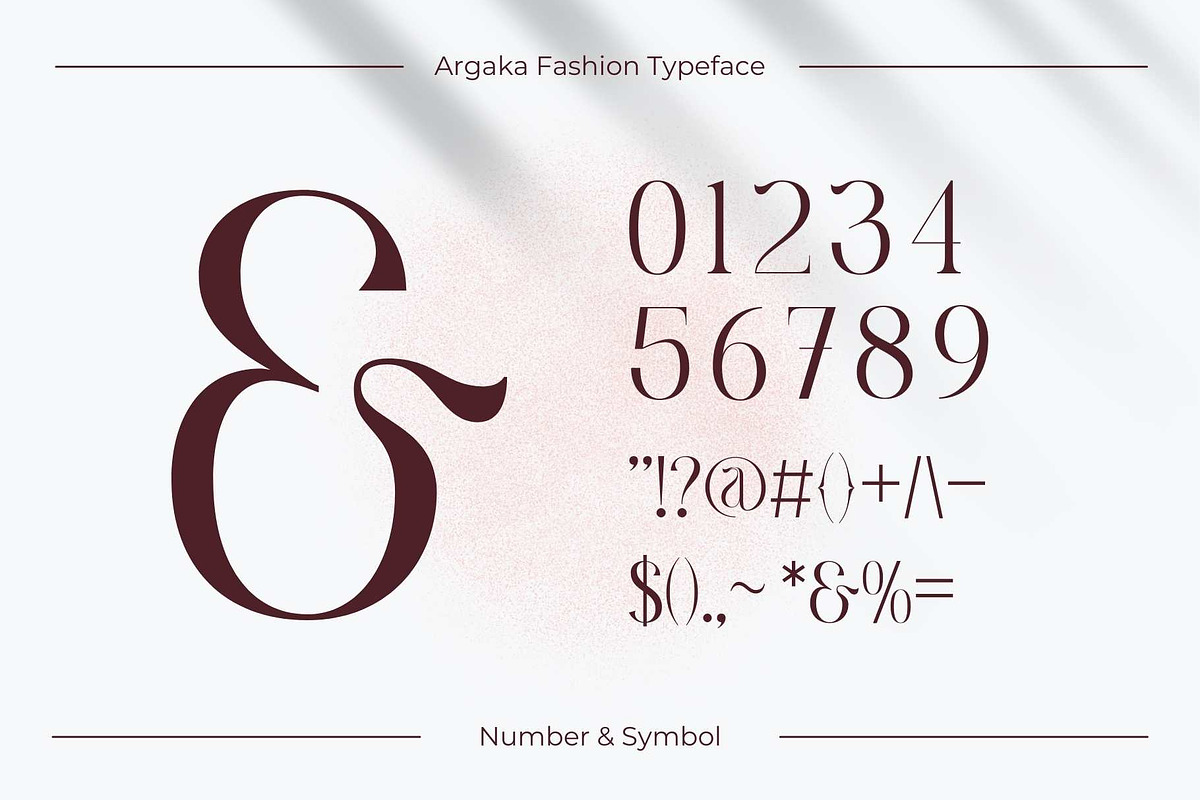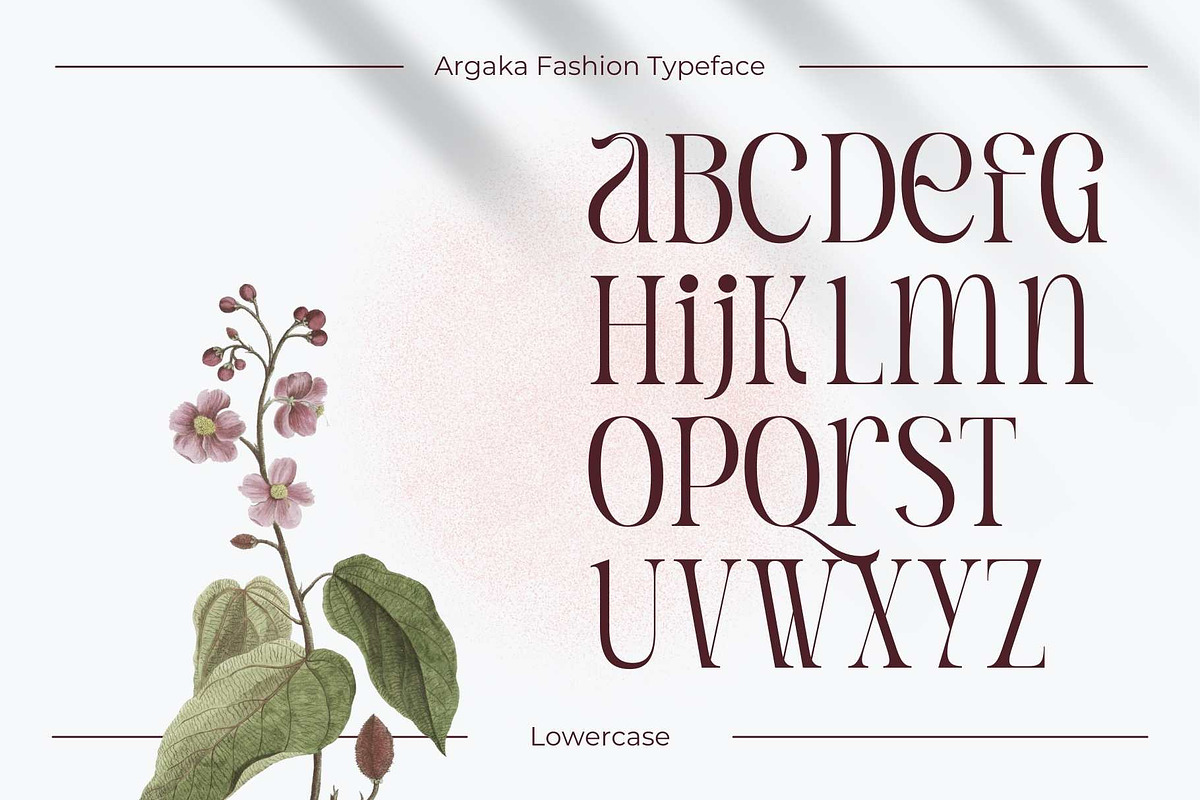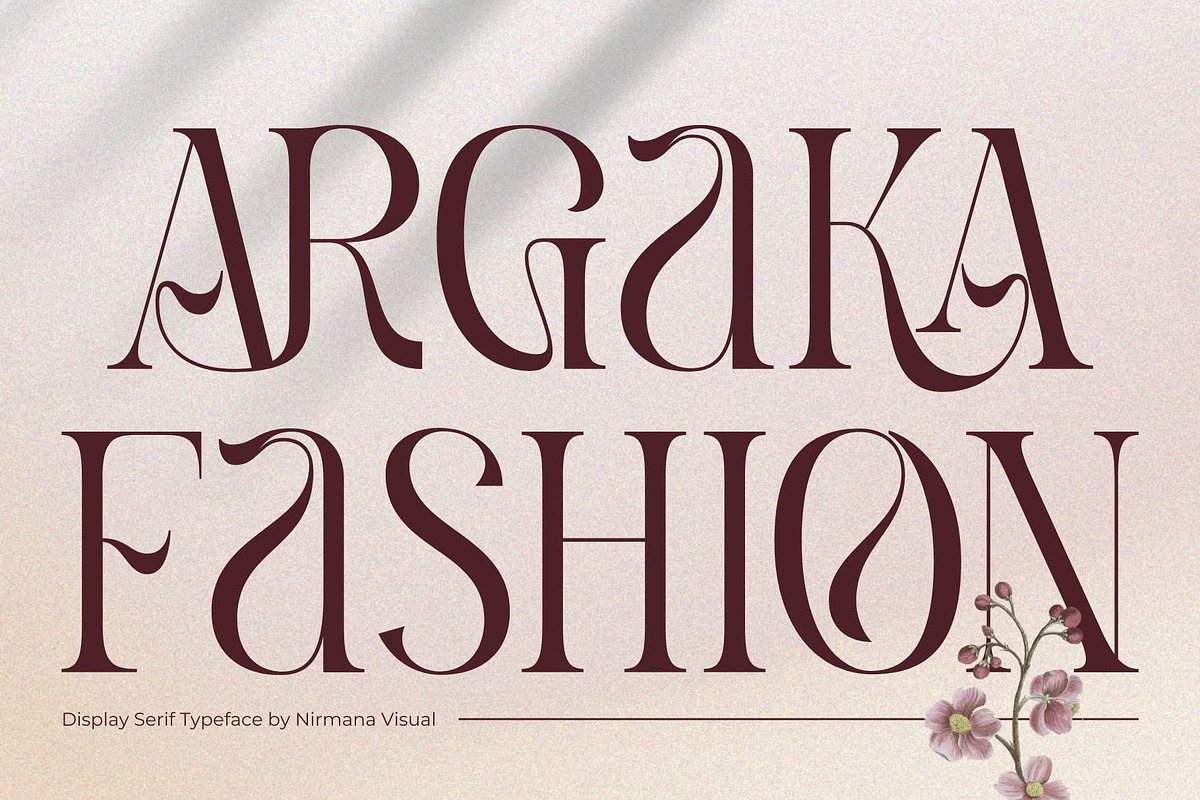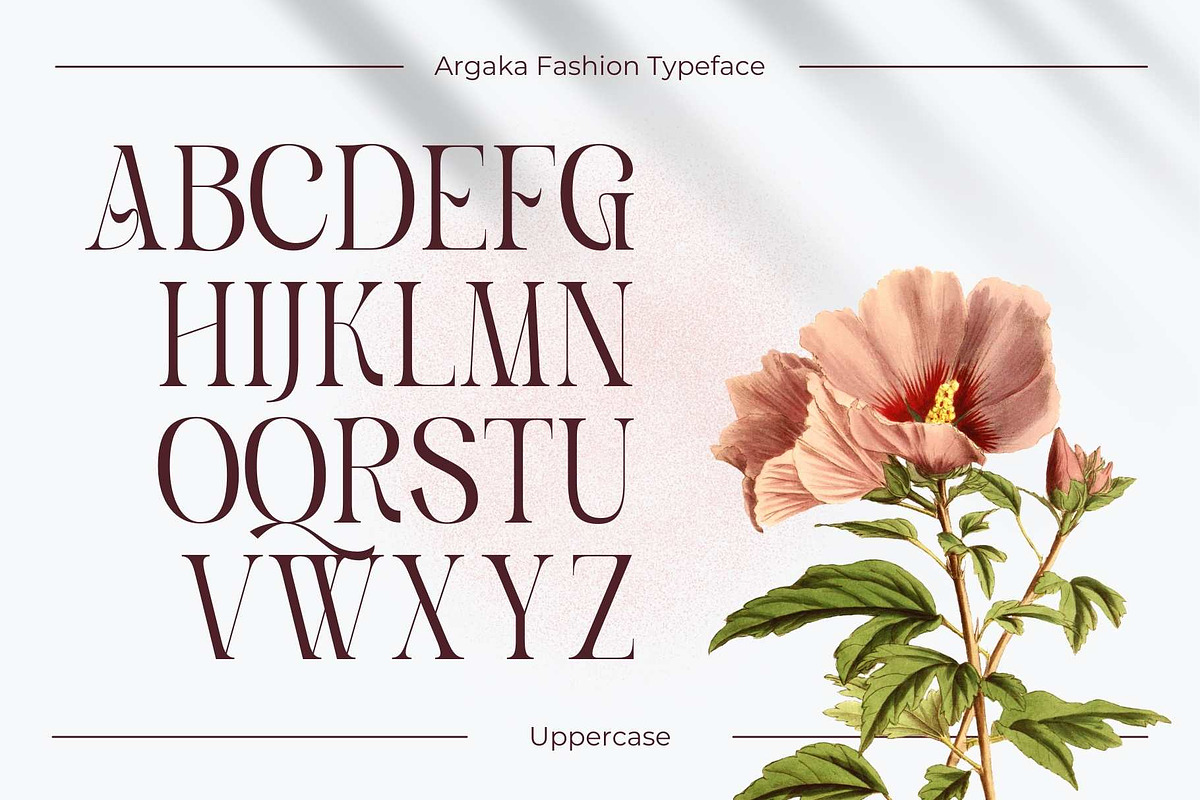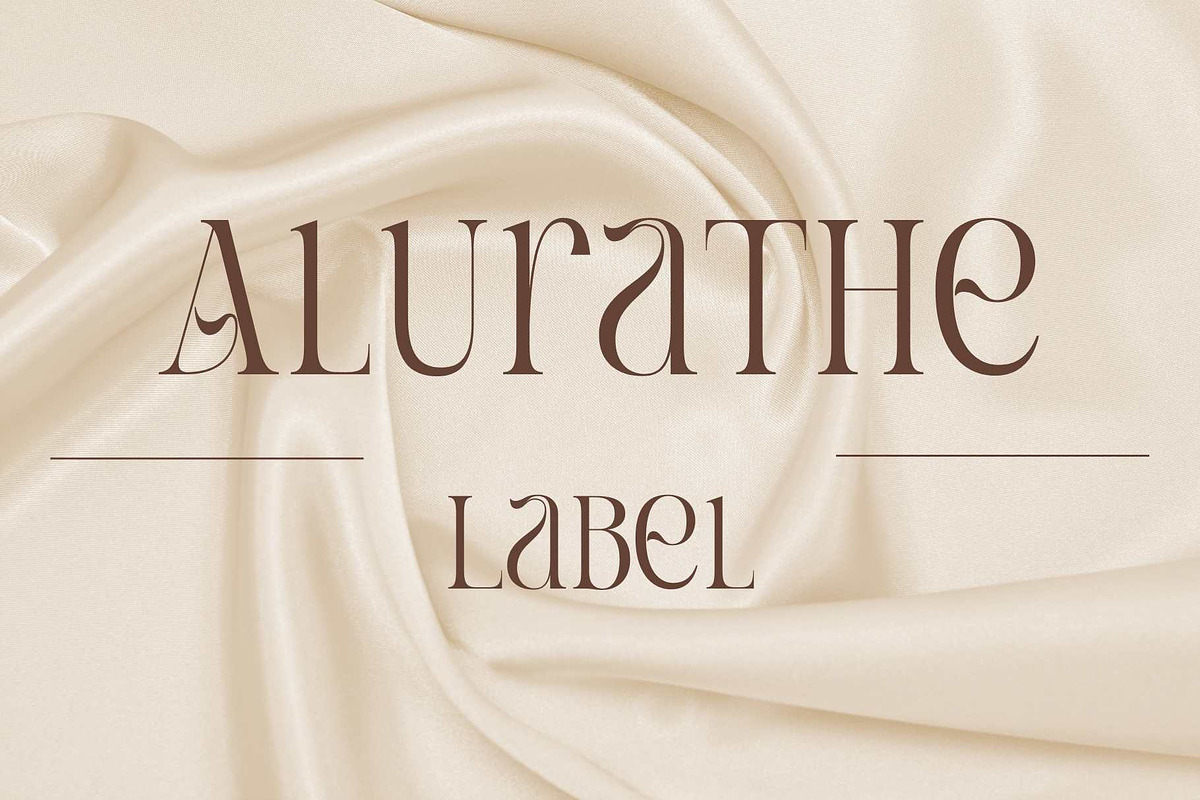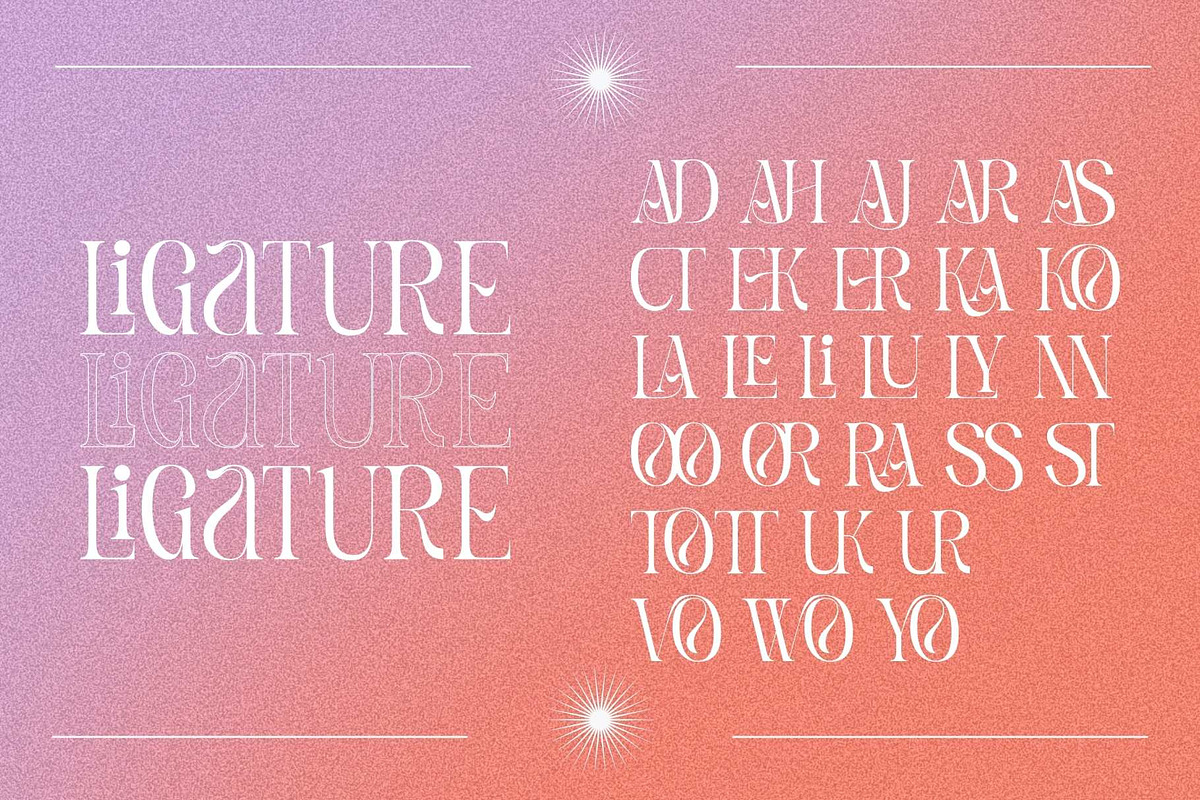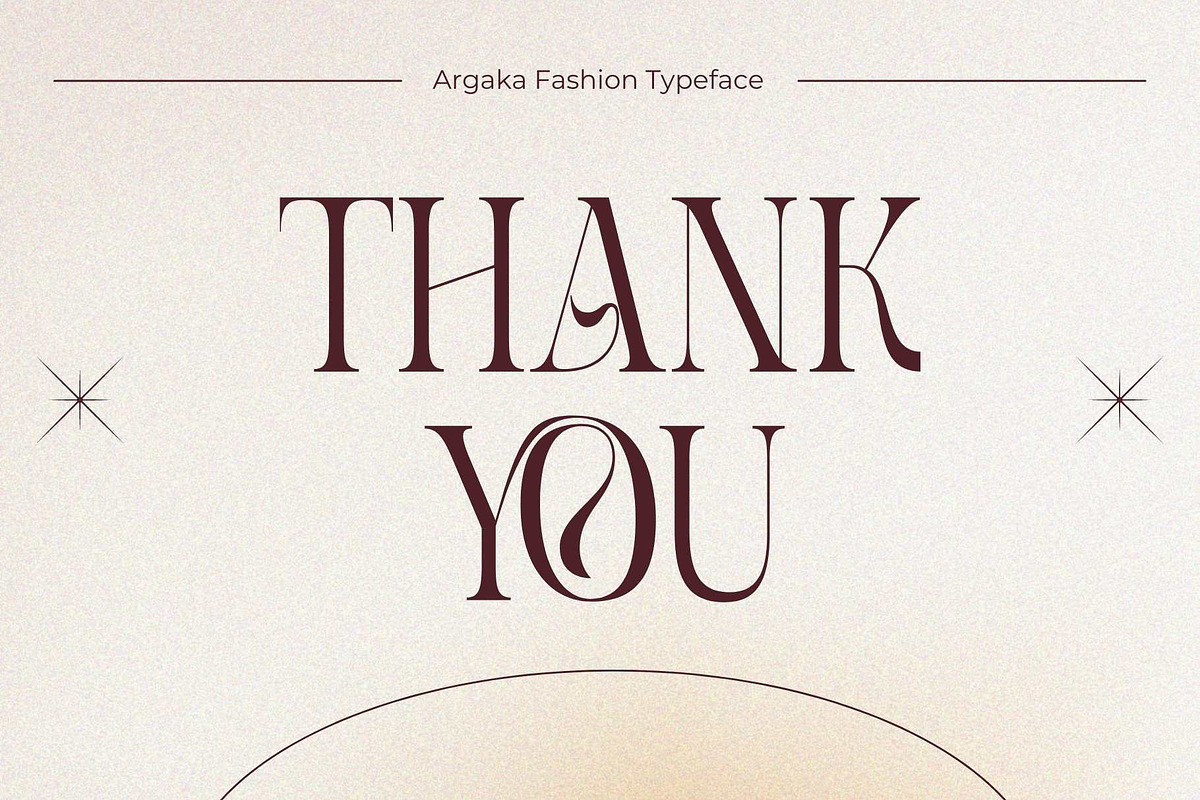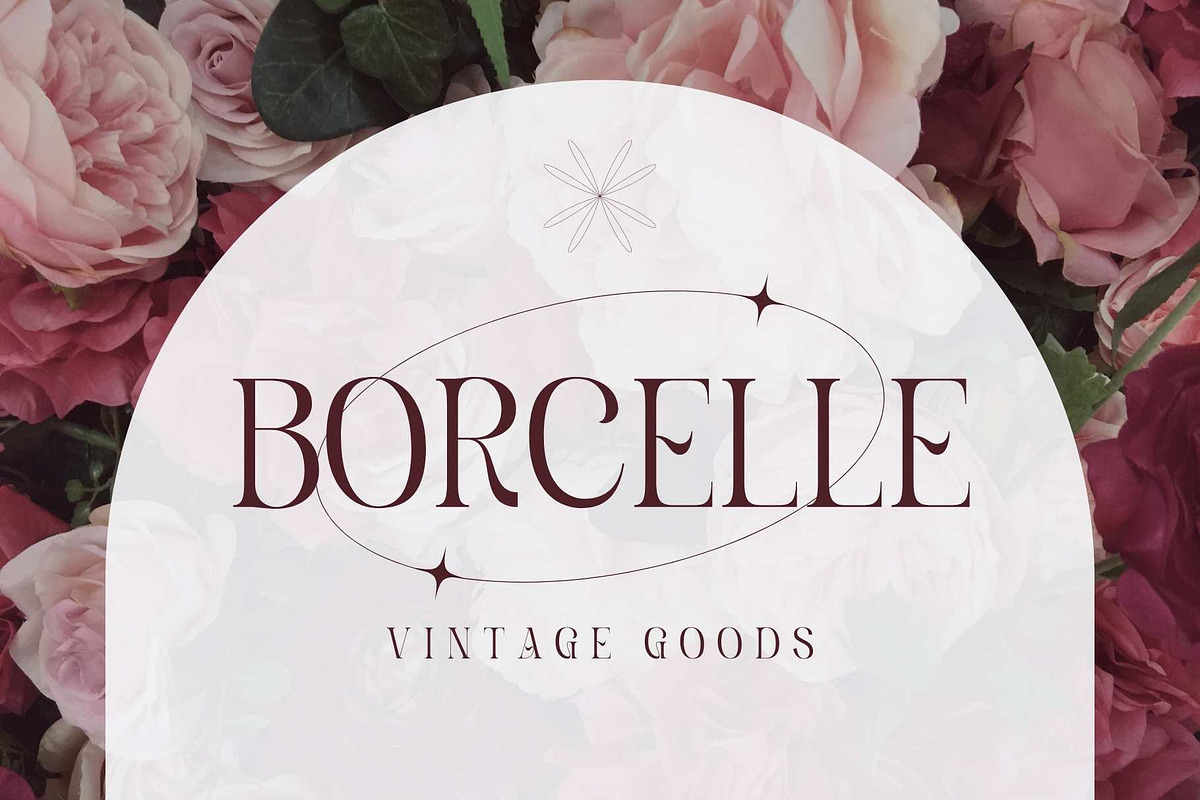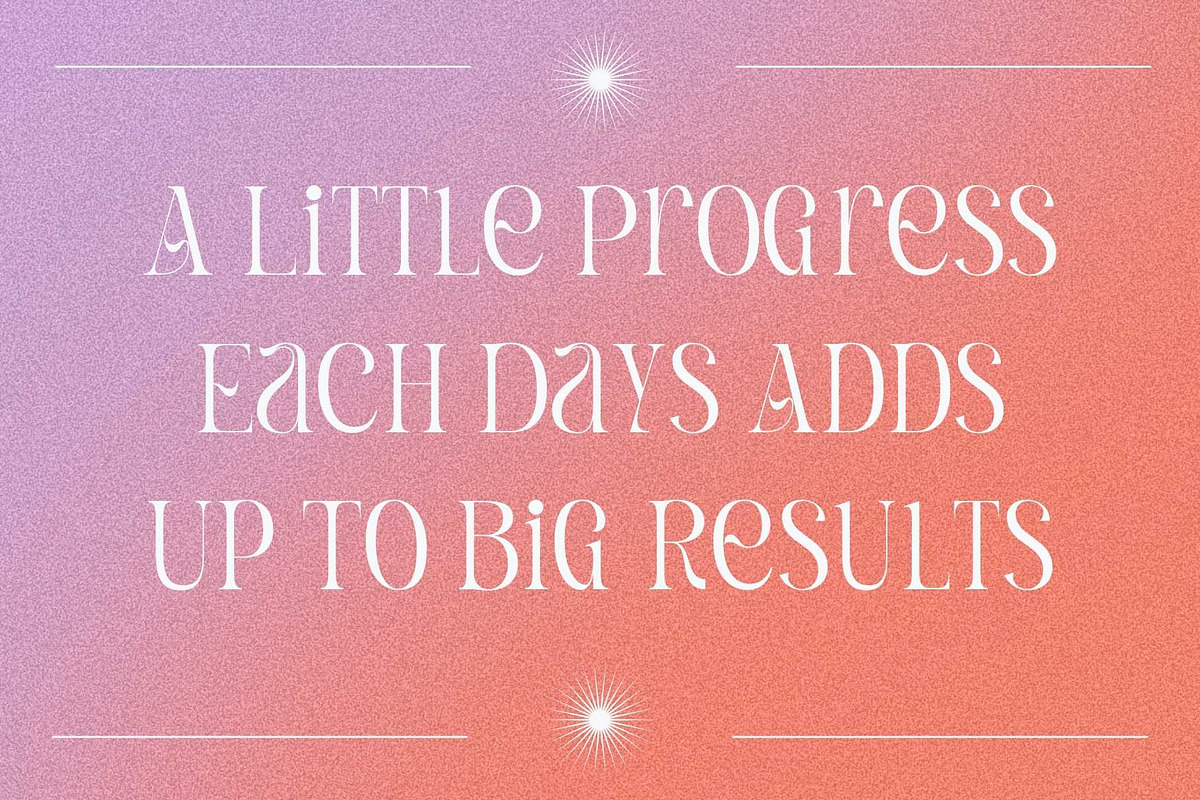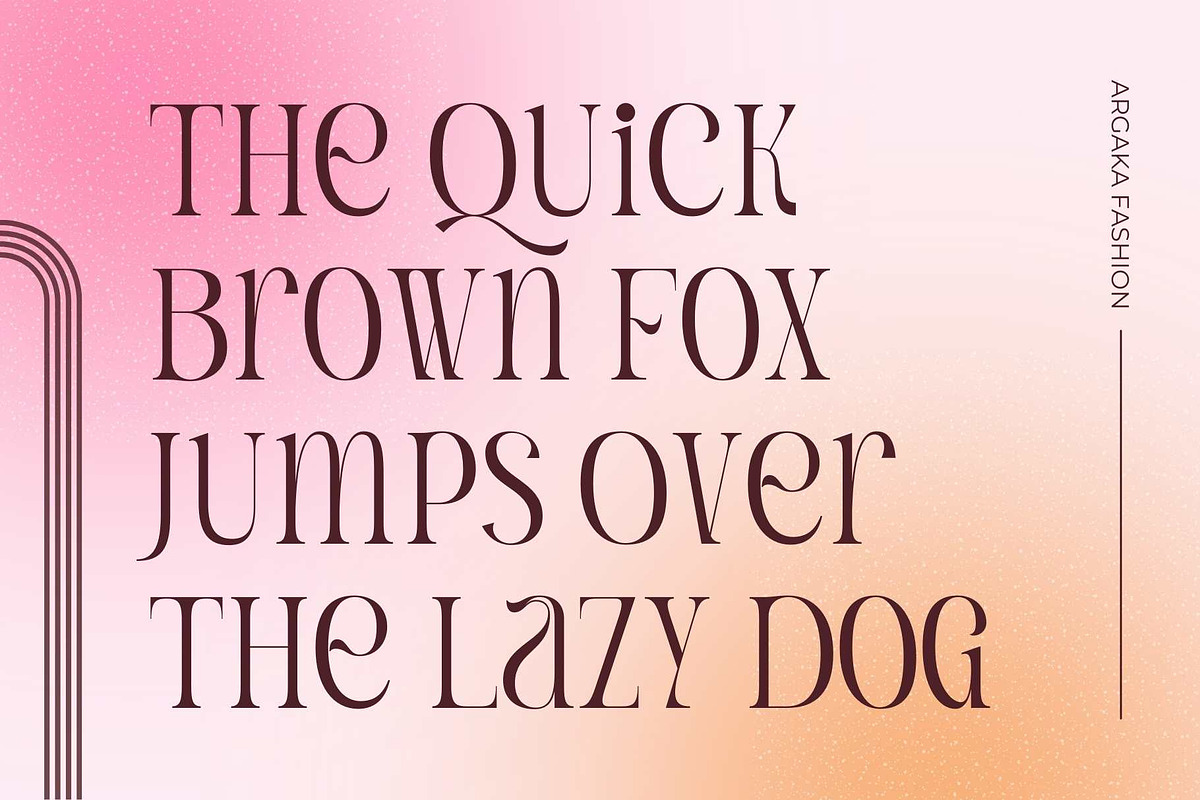
Argaka Fashion - Modern Serif
Argaka Fashion, contemporary of Serif Display font,
Argaka Fashion offers beautiful typographic harmony for a diversity of design projects, including logos & branding, social media posts, advertisements & product designs.